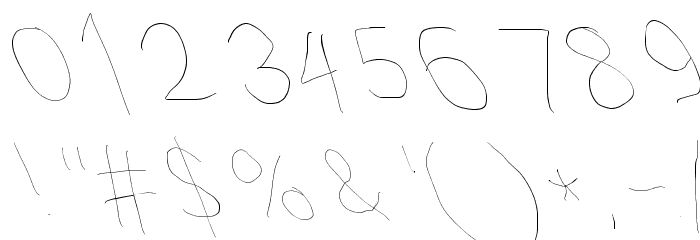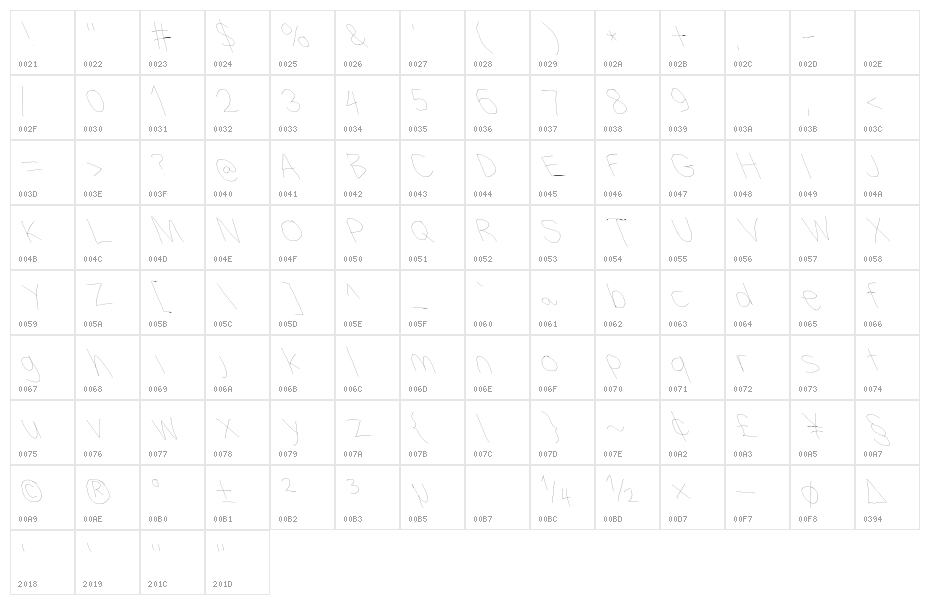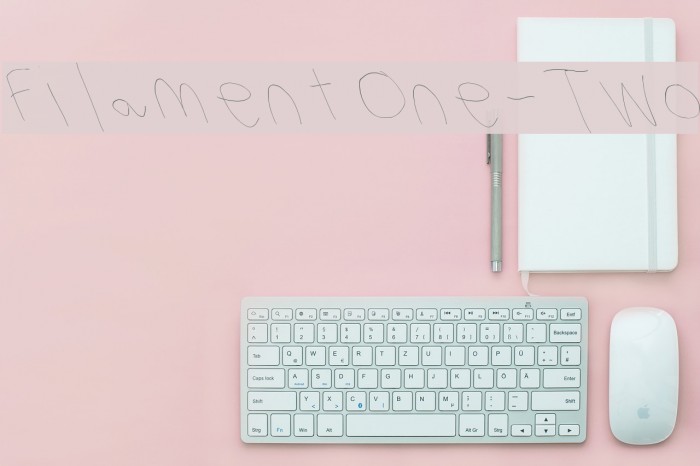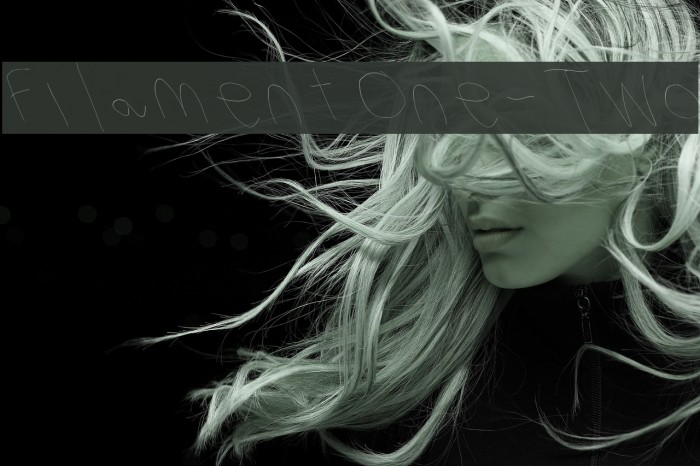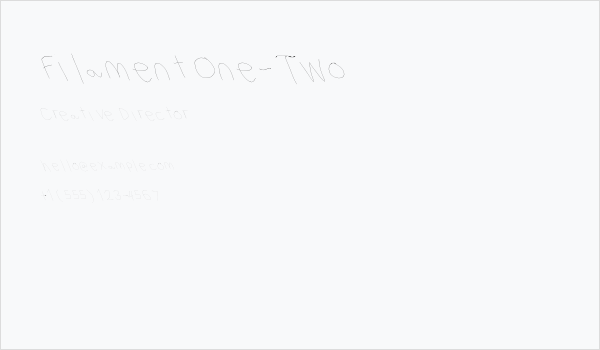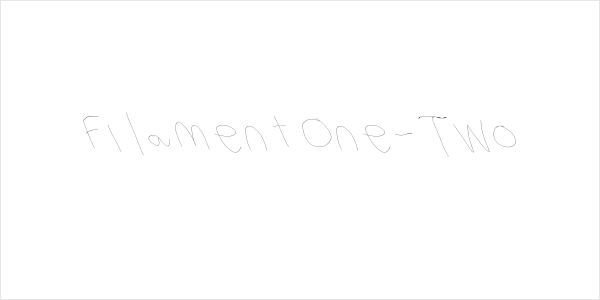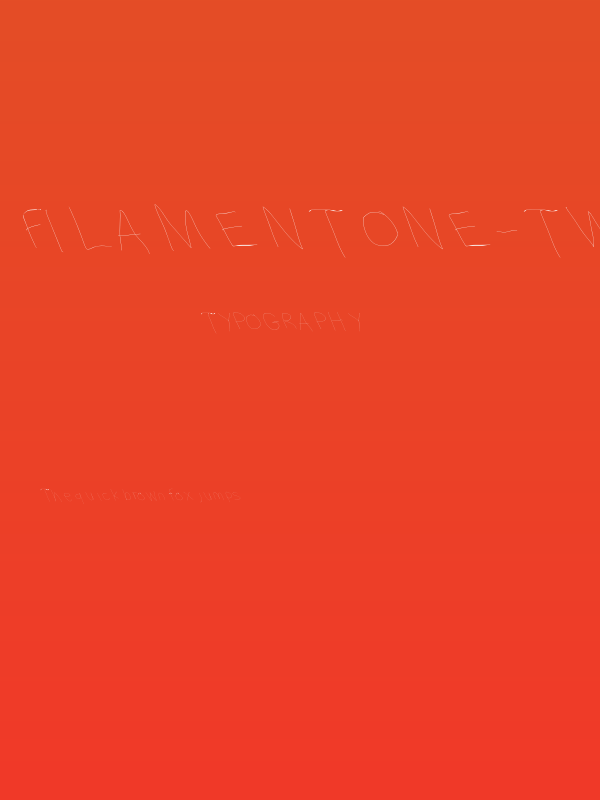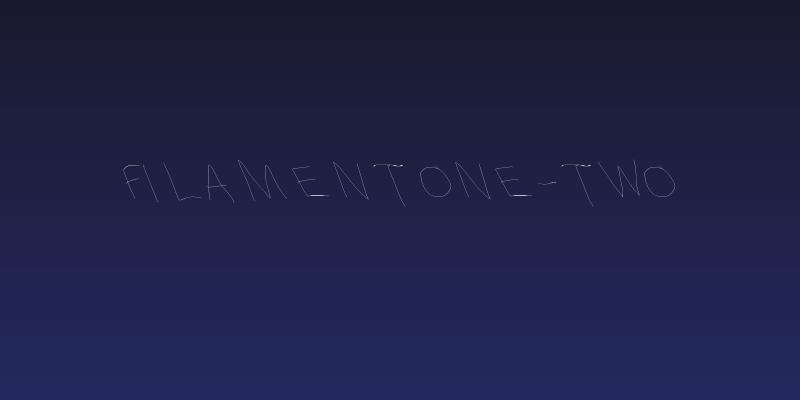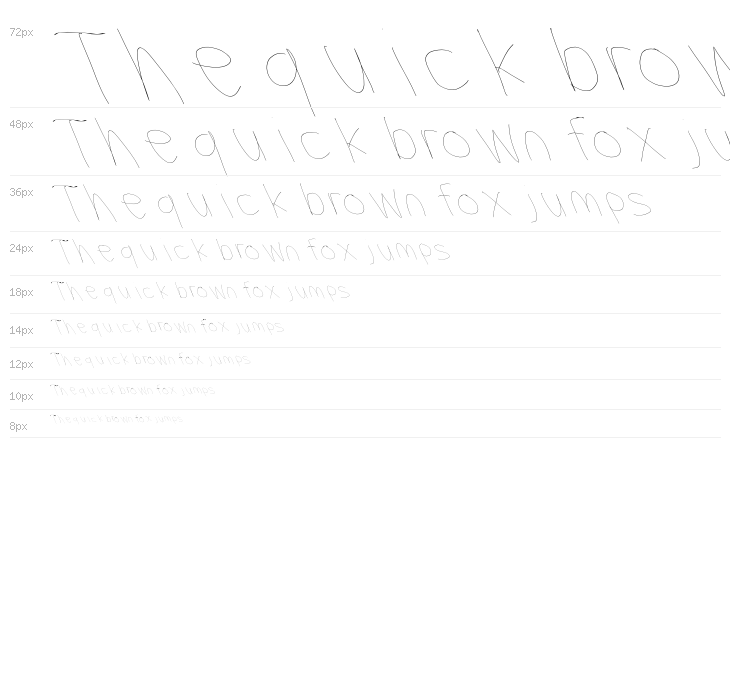
Filament One-Two Font
Filament One-Two Description
This font features a delicate, hand-drawn style with thin, slightly irregular lines that give it a casual and informal appearance. The characters are crafted with a light touch, creating an airy and open feel. The uppercase and lowercase letters maintain a consistent height, while the numerals and special characters follow the same slender design. The overall look is reminiscent of handwriting, with a playful and approachable vibe. This font is suitable for projects that require a personal touch, such as invitations, greeting cards, or creative branding.
| Overall Style | Casual, Handwritten |
| Use Case | Headlines, Creative projects, Personal branding |
| Proposed Projects | Ideal for invitations, greeting cards, personal branding, and creative projects. |